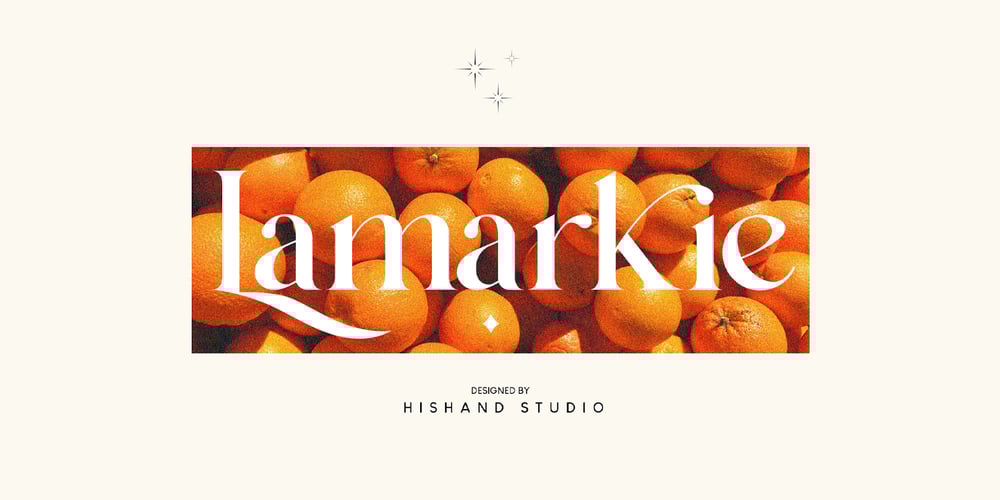
Lamarkie
Lamarkie font
Lamarkie Font Family was designed by Putu Dody Permana and published by Hishand Studio. Lamarkie contains 4 styles and family package options. Introducing Lamarkie, a classic yet modern typeface with lots of style. For those who are needing a touch of elegany, stylish, classy, chic, and modernity for your design, this font was created for you!. Complete with ligatures alternates regular italic hollow icon kerning multilingual support